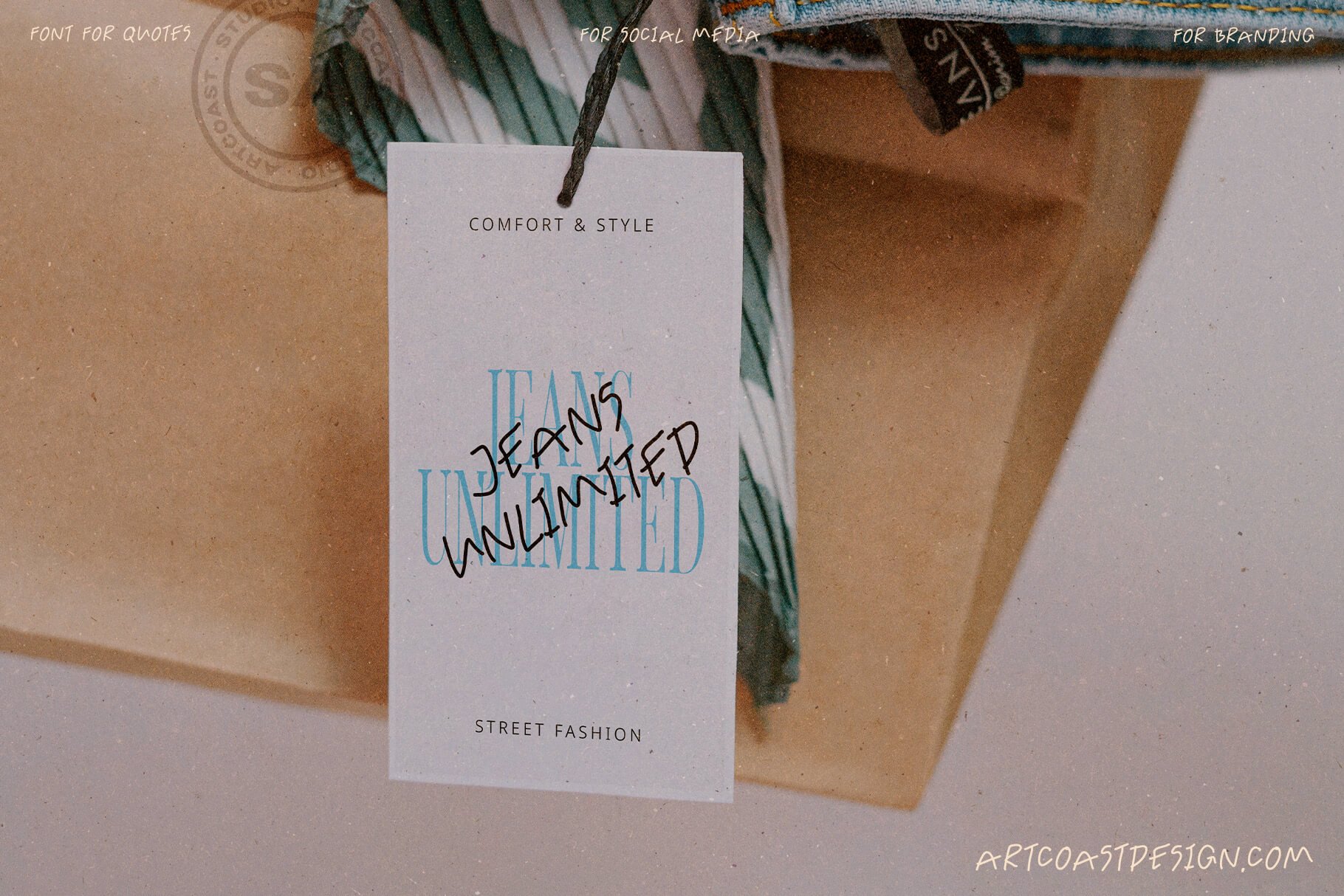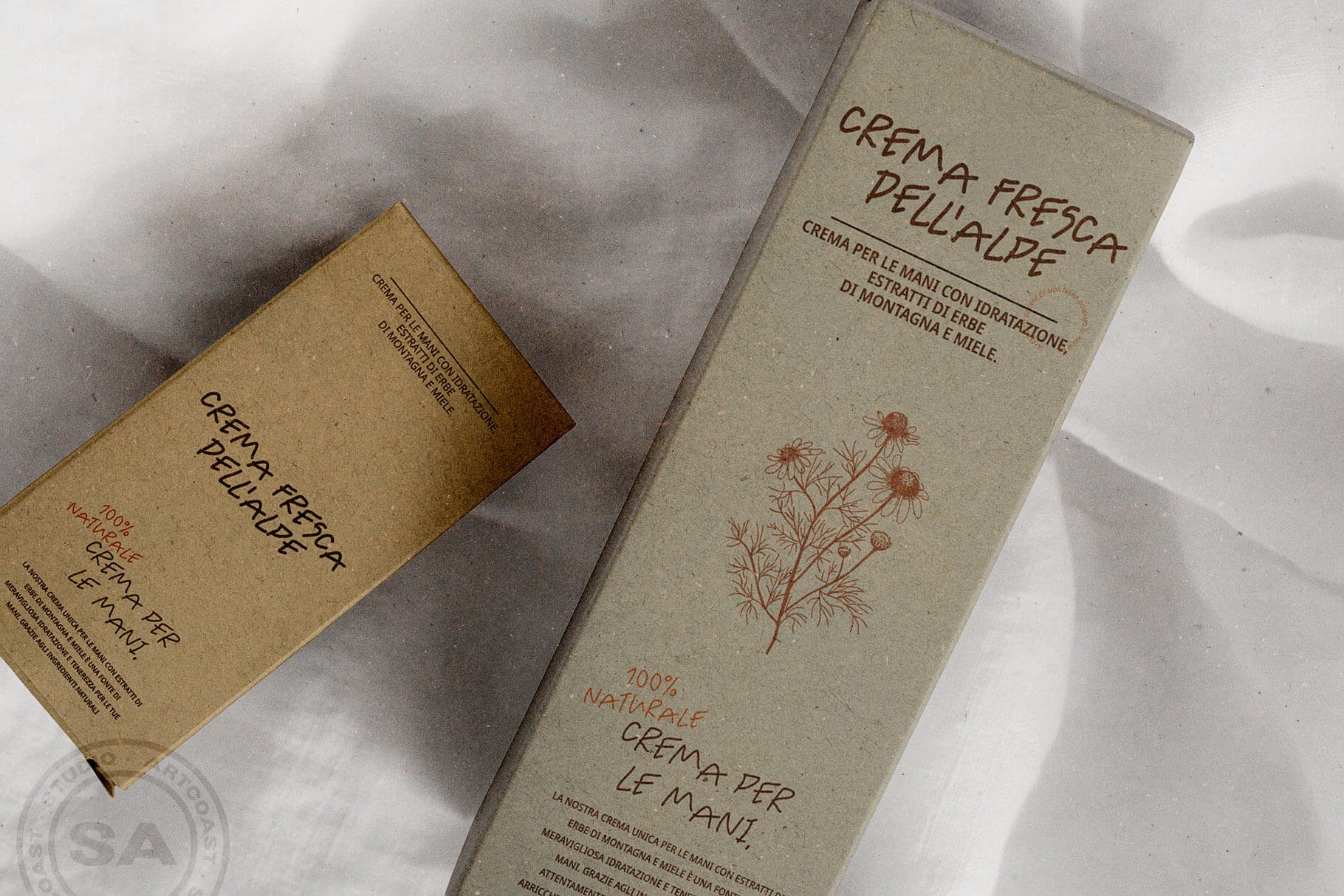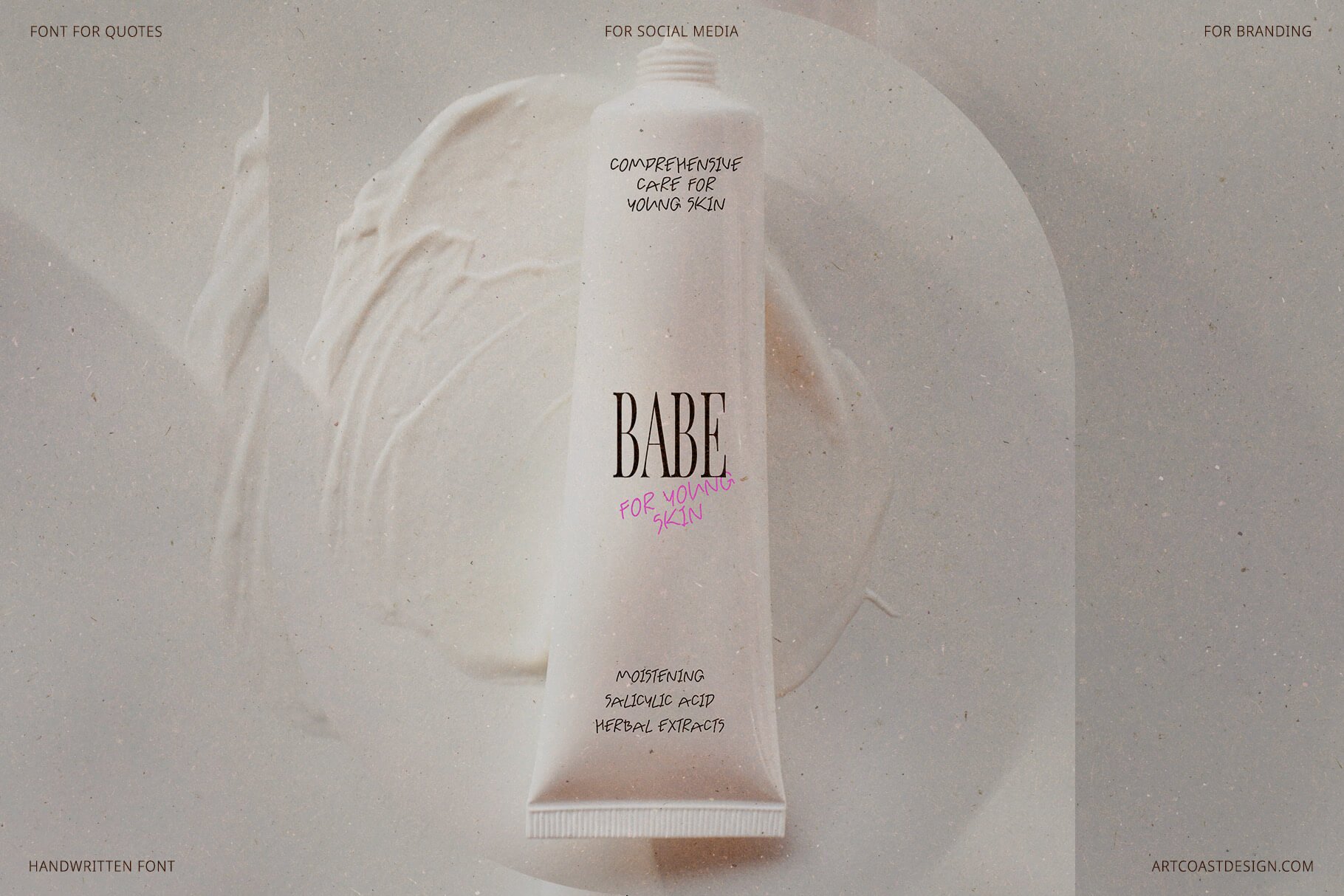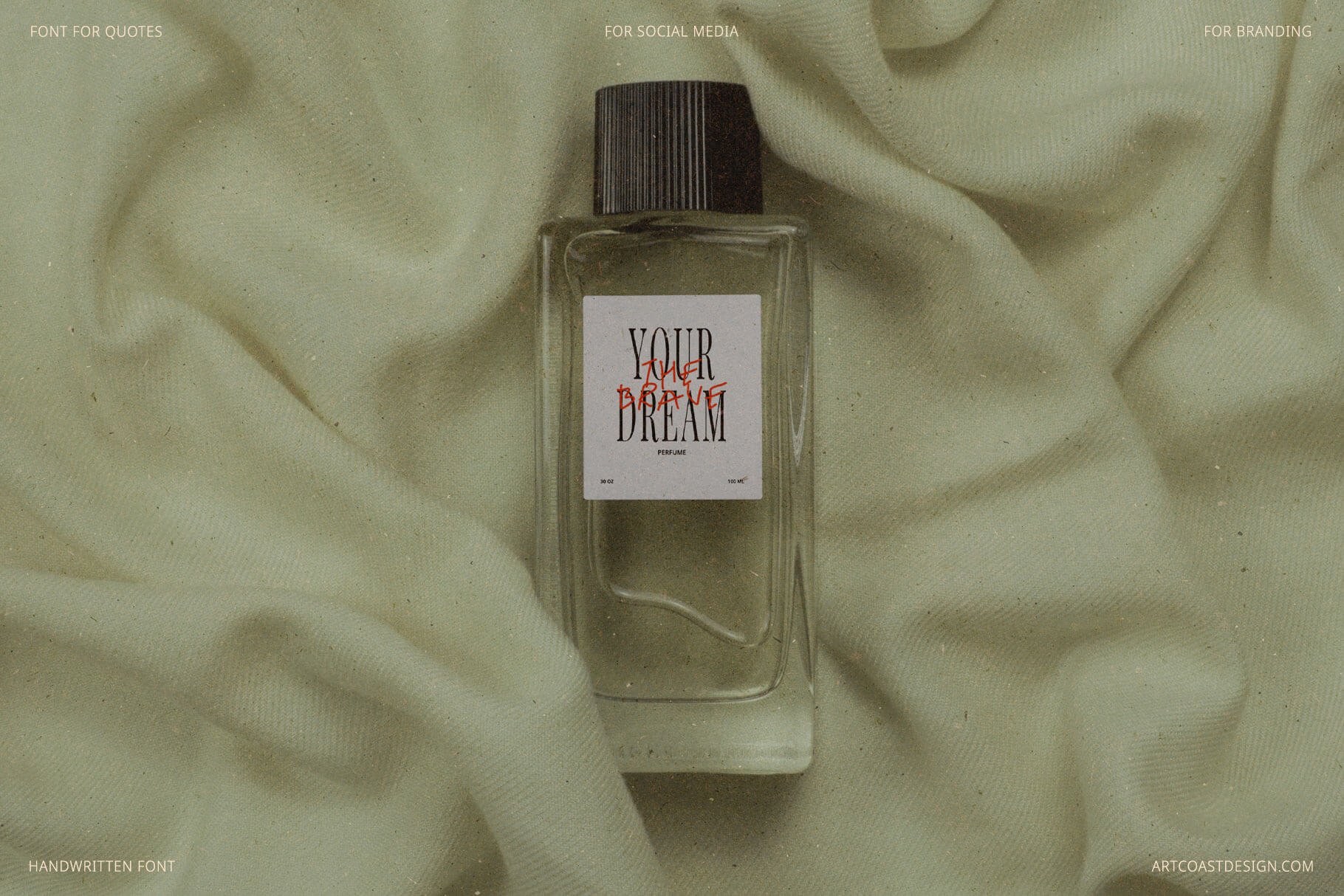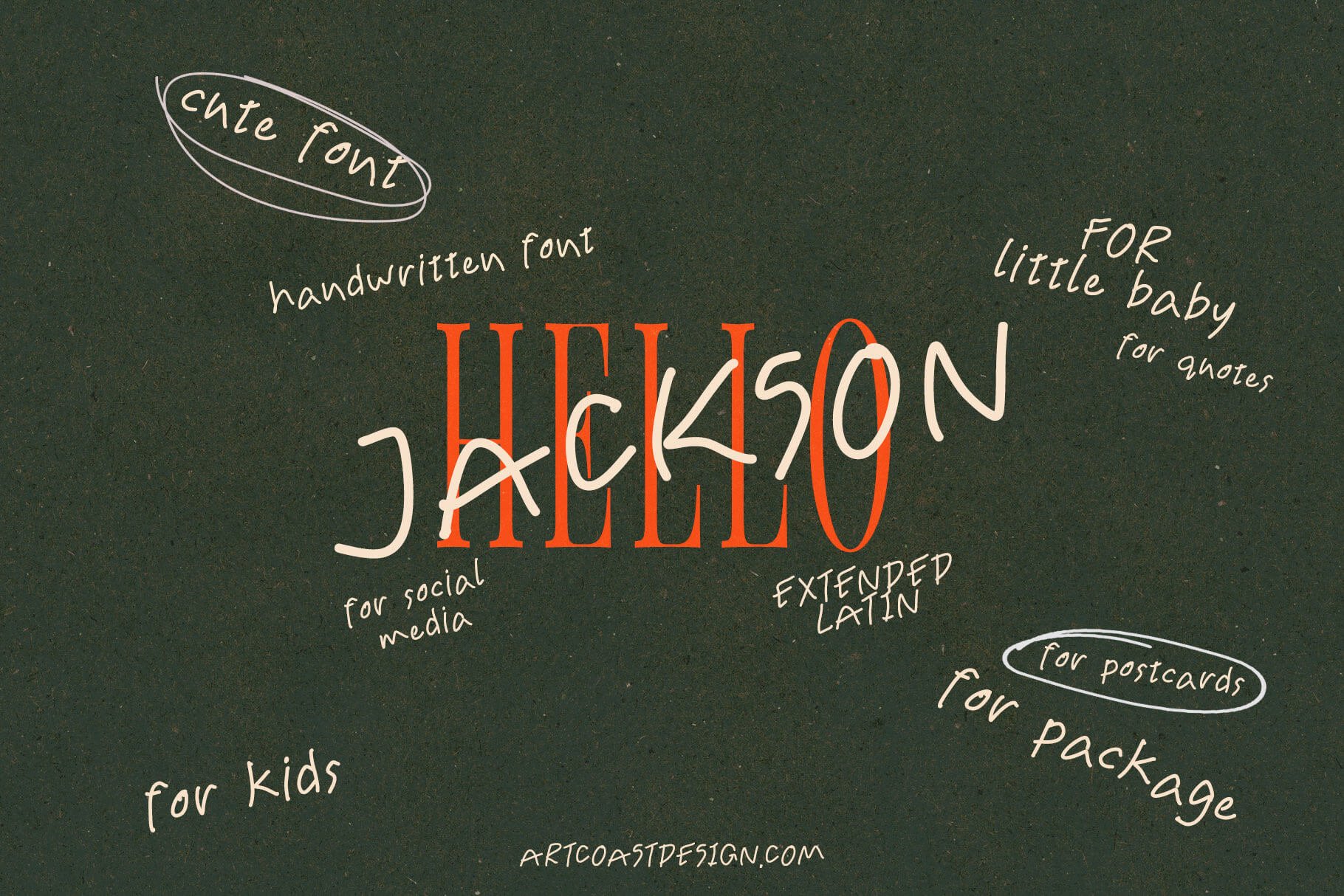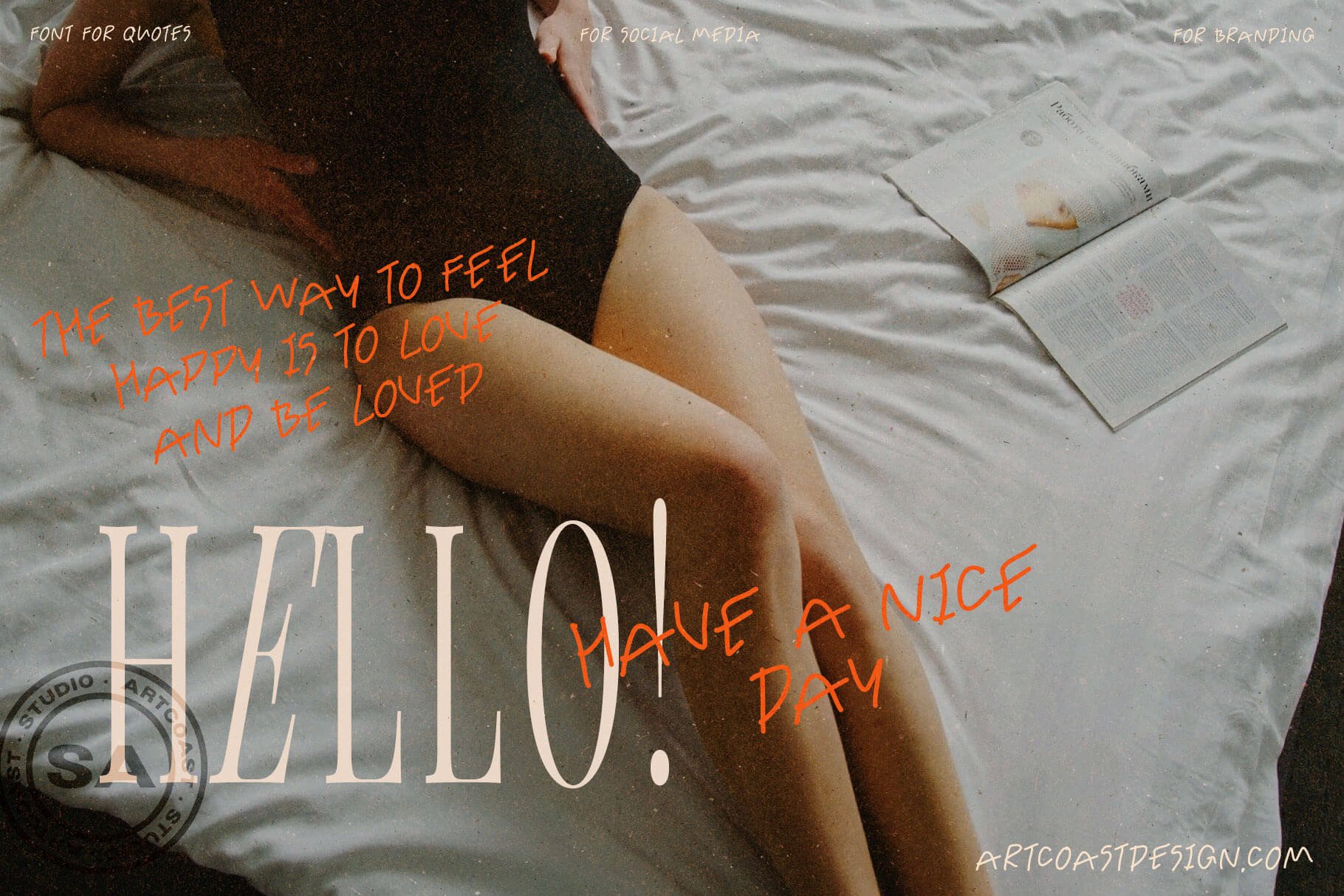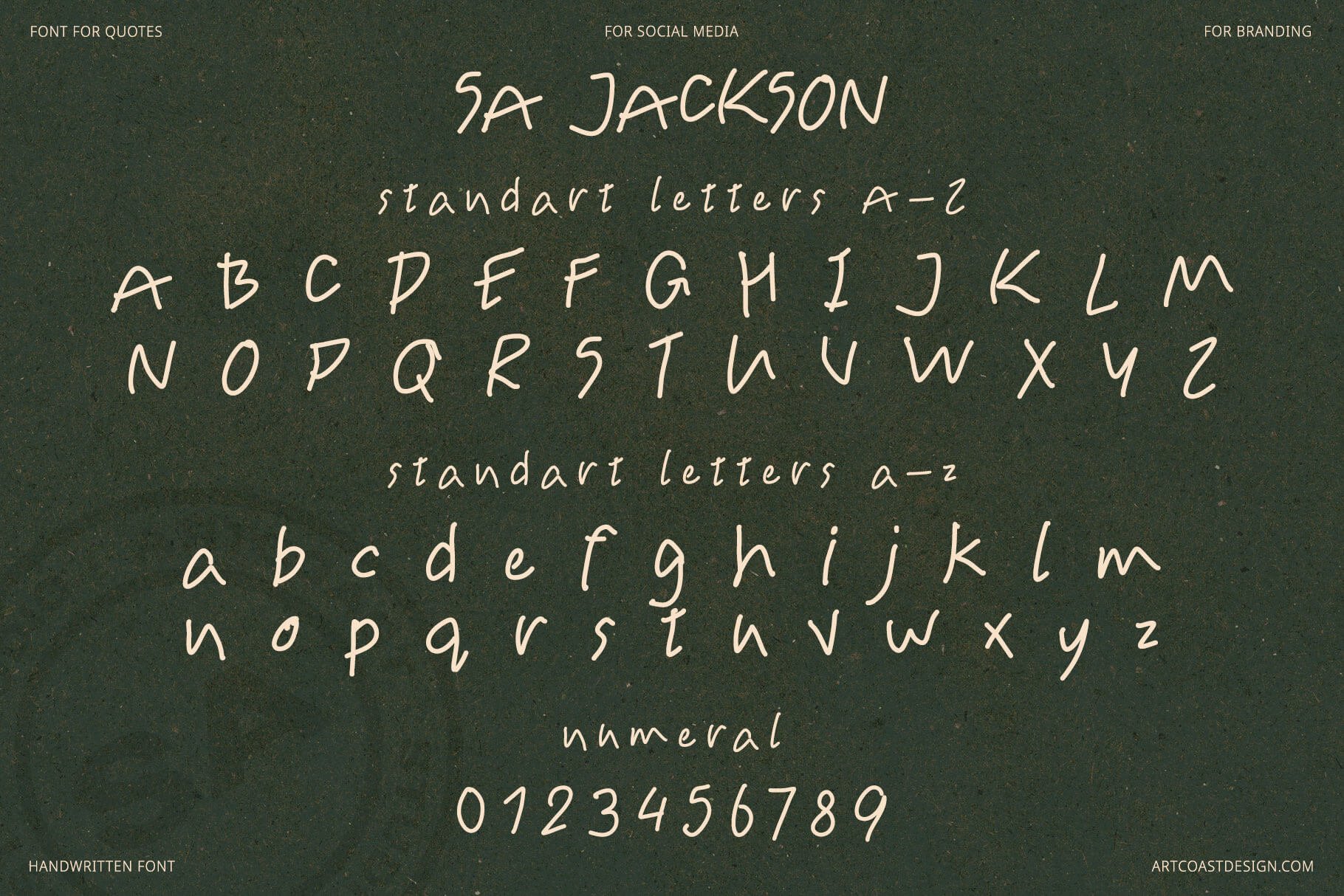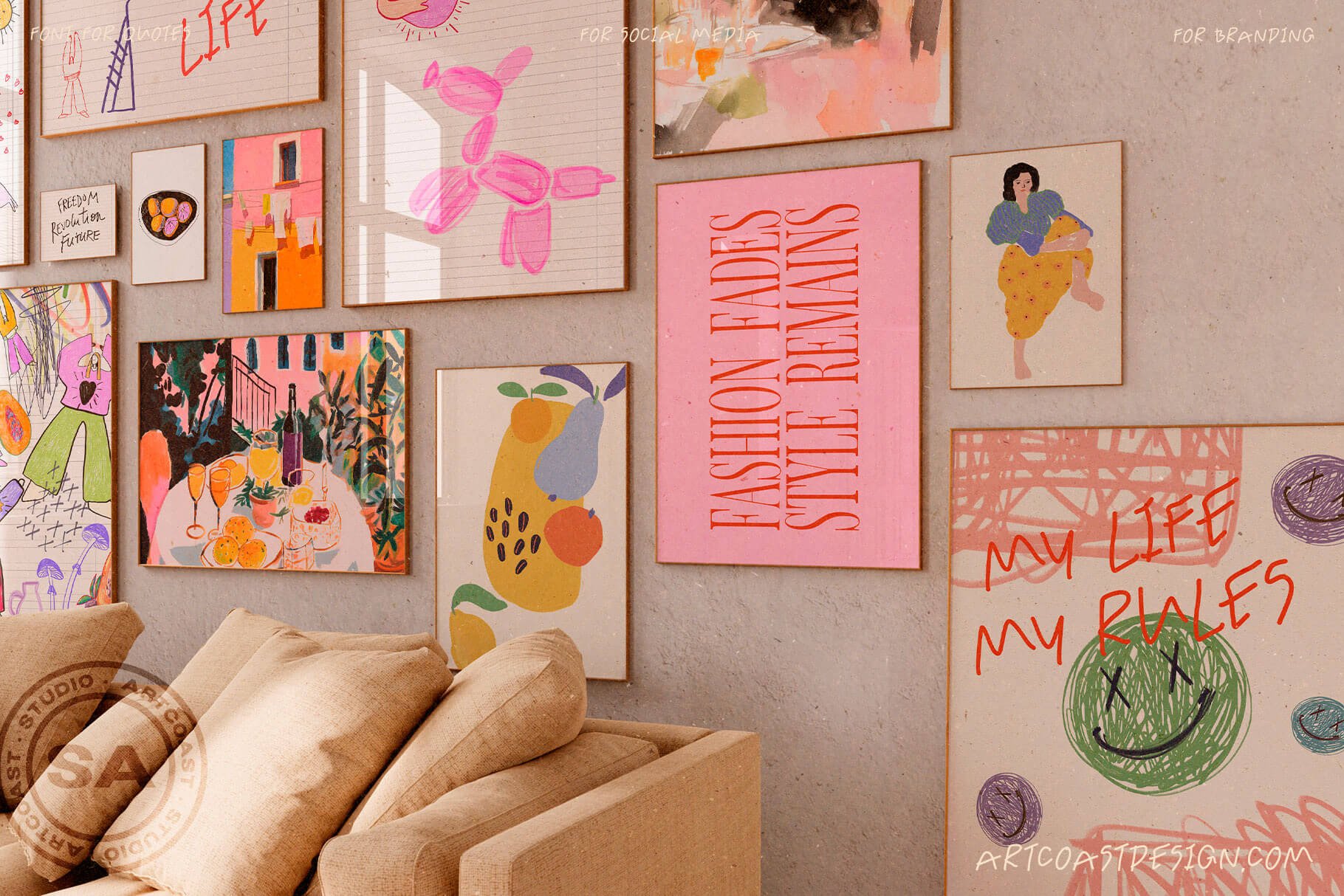
SA Jackson Handwritten Font: Elegant & Authentic Typeface
Dive into a world of elegance and authenticity with the SA Jackson Handwritten Font. This singular typeface captures the genuine essence of handwritten scripts, delivering a touch of intimacy and sophistication to your creative endeavors.
Every glyph in the SA Jackson Handwritten Font is meticulously designed to echo the subtle imperfections and fluidity of human penmanship, yet retains a polished, professional edge. This harmonious blend makes it a stellar fit for diverse projects, ranging from brand identities and logos to heartfelt cards, event invitations, evocative quotes, digital platforms, and more.
The font boasts an extensive character set, encompassing uppercase and lowercase alphabets, numerals, punctuations, and a suite of special symbols. Its multilingual support further amplifies its adaptability, ensuring your designs resonate globally.
For designers on the hunt for a typeface that speaks volumes with its grace, or brands aiming to infuse their identity with warmth and relatability, SA Jackson Handwritten Font is the answer. It doesn't just add a handwritten touch; it embeds stories, emotions, and a personal connection into every design.